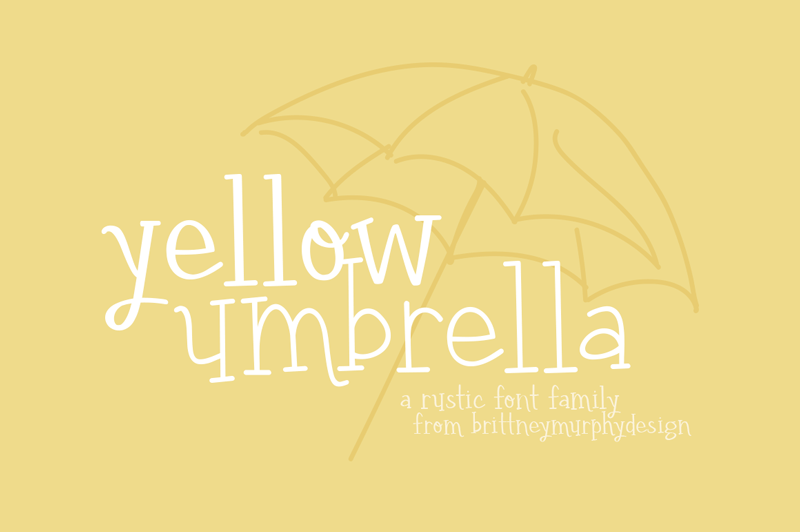
Font name: | Yellow Umbrella |
Author: | Brittney Murphy Design |
Note by Brittney Murphy Design | |
Yellow Umbrella is a hand-drawn weighted serif. Give a lighthearted rustic look to your crafts and designs! Free for personal and non-profit use. For commercial use, please purchase a license: http://brittneymurphydesign.com/downloads/yellow-umbrella-font-family/ |